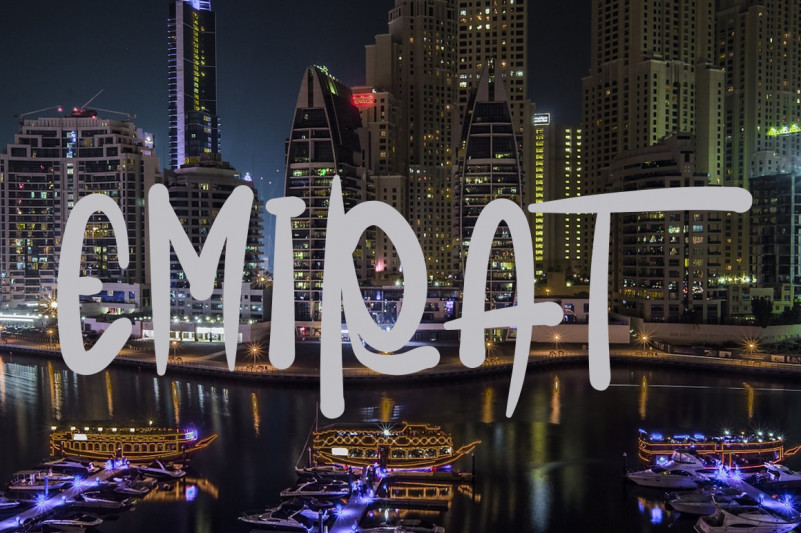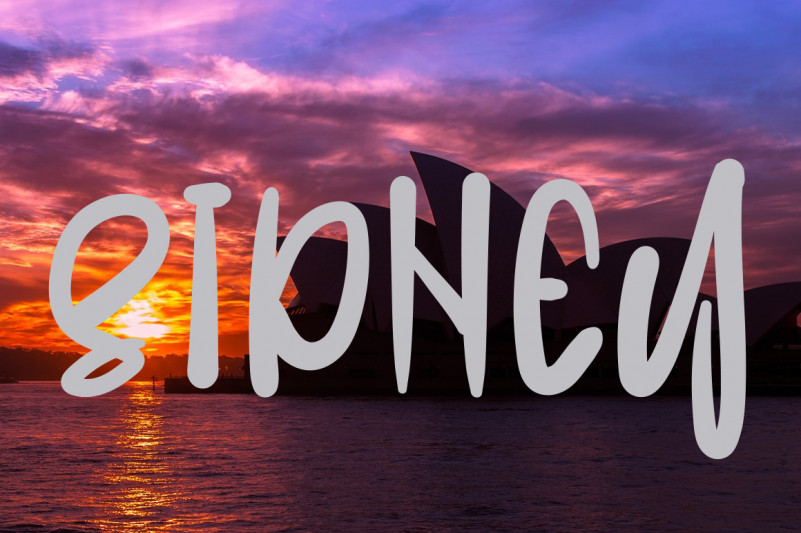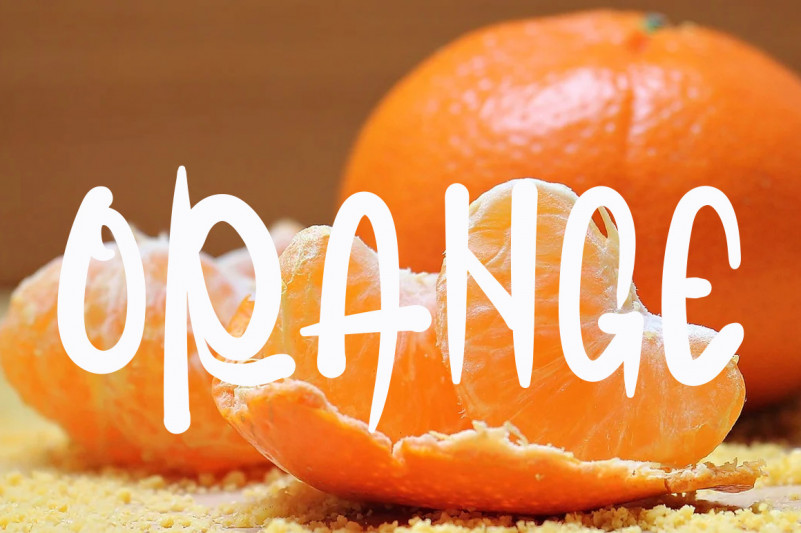
Dubai Script Font
This is a dainty, genuine and relaxed handwritten font. This gentle font will look gorgeous on a variety of design ideas. It will add a joyful and cool touch to each of your projects!